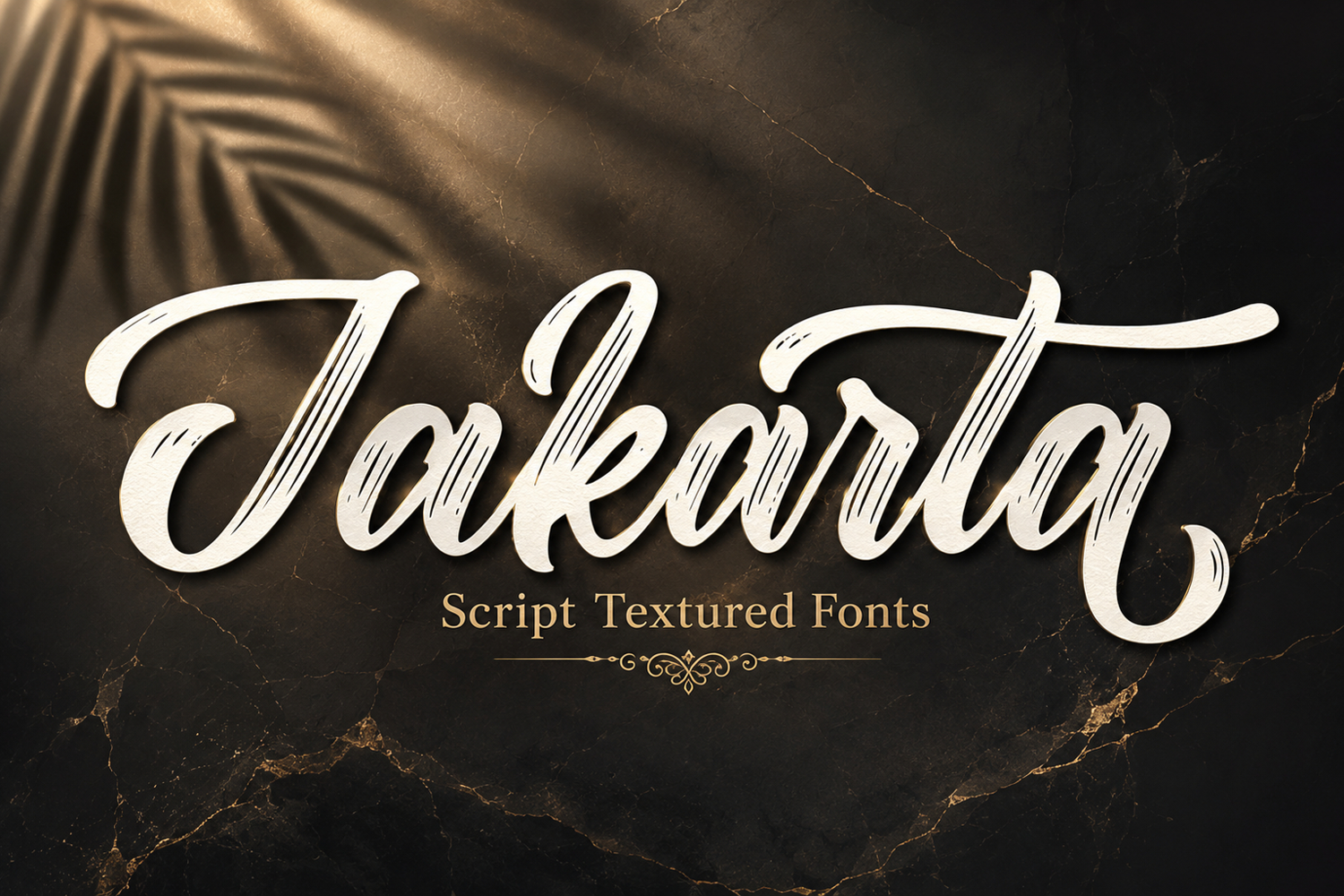
Jakarta
Jakarta is a script with a vintage look and feel. This font is perfectly made to be applied especially in logos, and other various formal forms such as invitations, labels, logos, magazines, books, greeting/wedding cards, packaging, fashion, make-up, stationery, novels, labels, and others .